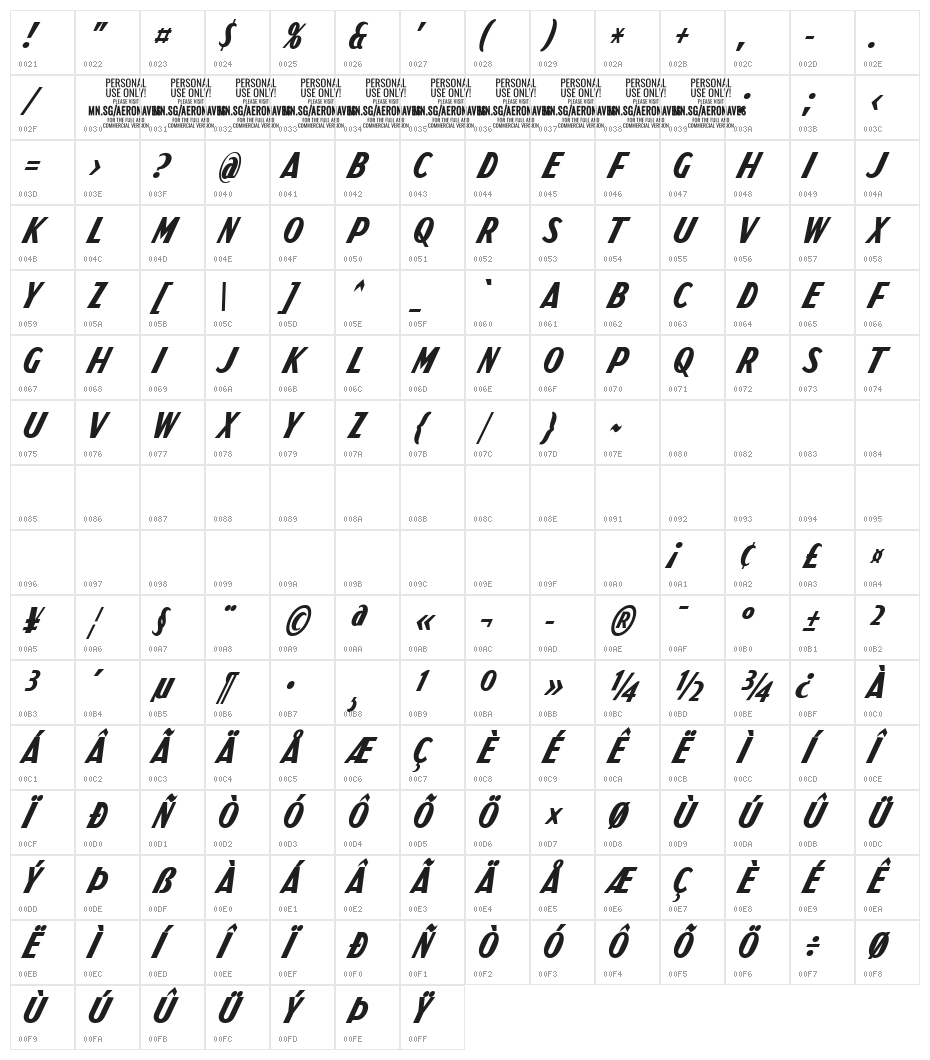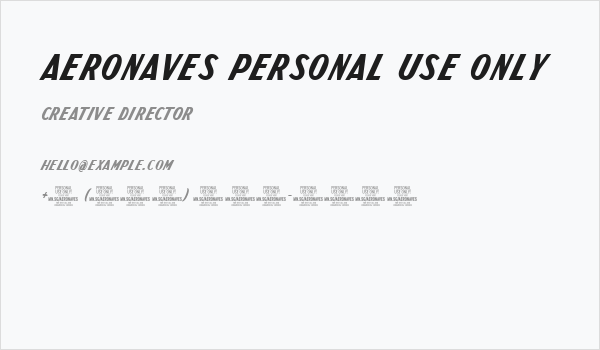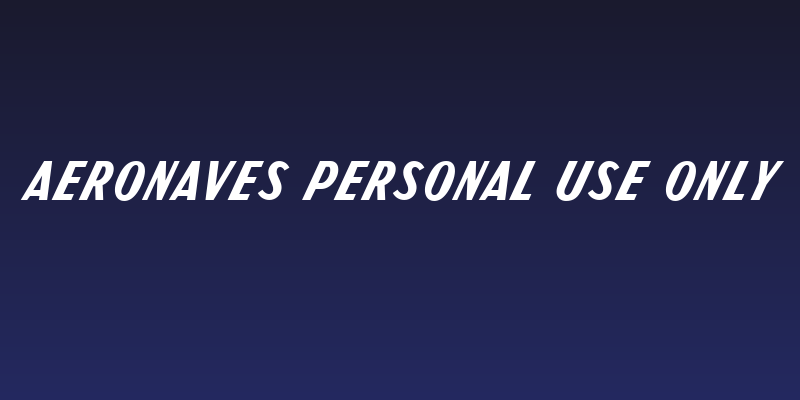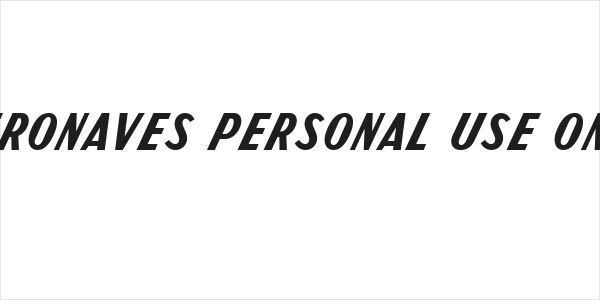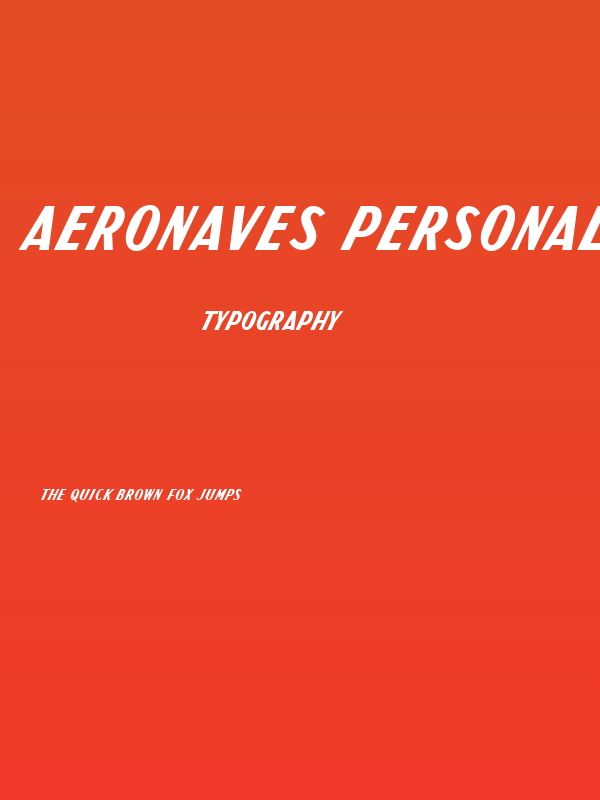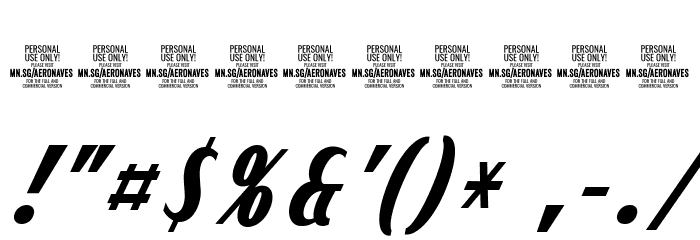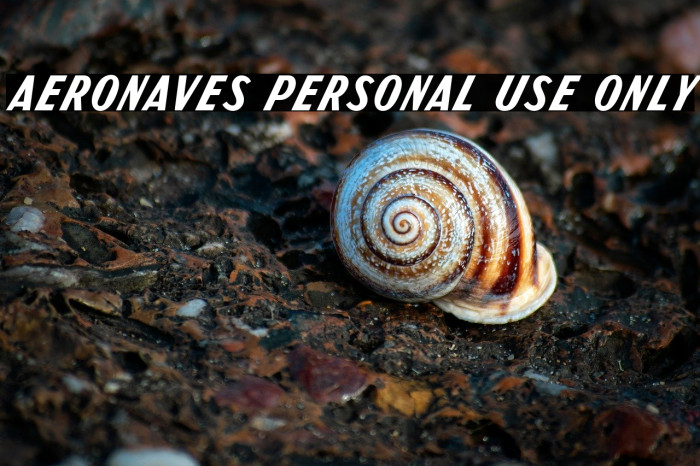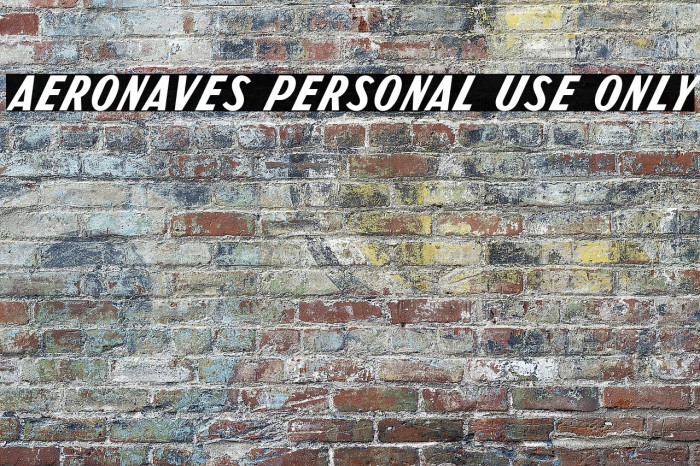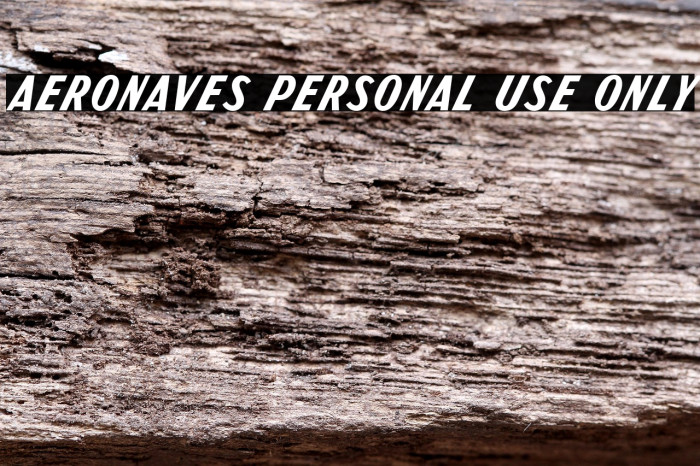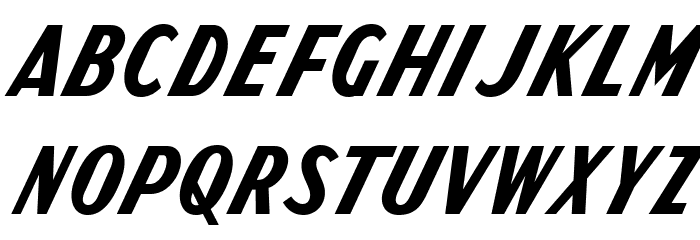
Aeronaves PERSONAL USE ONLY Font
Aeronaves PERSONAL USE ONLY Description
This font features a bold and dynamic style with a strong slant, giving it a sense of motion and energy. The characters are thick and robust, with a consistent stroke width that adds to its bold appearance. The uppercase letters are prominent and commanding, while the lowercase letters maintain the same energetic slant. The numerals and special characters are designed to match the overall bold and slanted style, ensuring a cohesive look across all text. This font is ideal for making a strong visual impact.
| Proposed Projects | Ideal for sports branding, dynamic posters, and attention-grabbing headlines. |